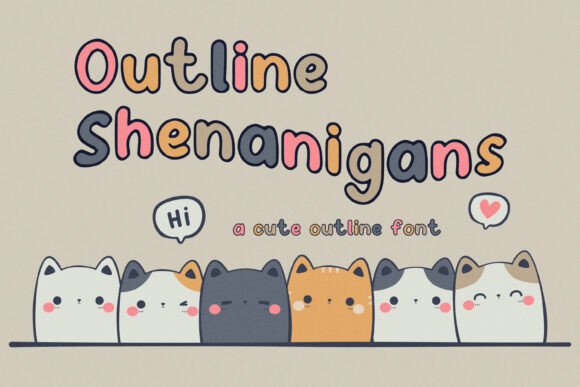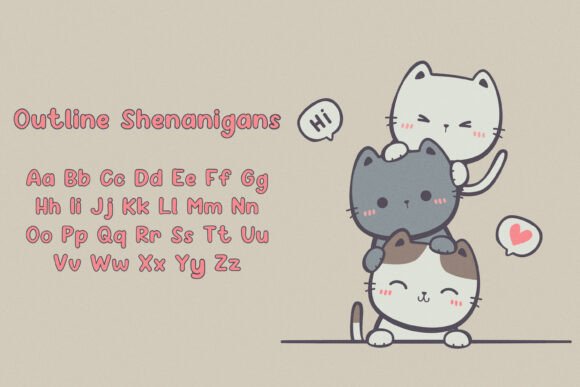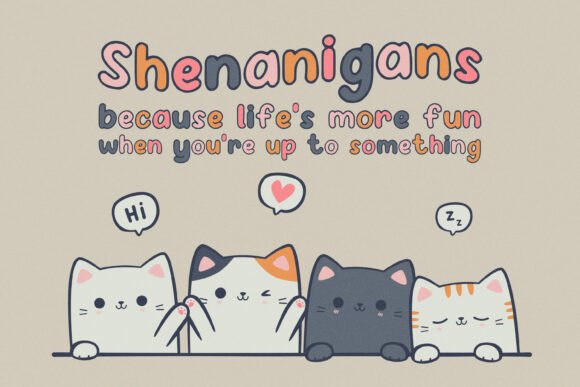
Outline Shenanigans Font: A Cute & Playful DIY Craft Font
About the Outline Shenanigans Font
The wait is over! The incredible Outline Shenanigans Font is now available for your design toolkit. Experience the charm and playful appeal of Outline Shenanigans, a delightful font that breathes life into your creative projects. Perfectly suited for wall art creations, sublimation designs, and digital scrapbooking, this font infuses an element of whimsy and enjoyment to your work.
Outline Shenanigans’ playful energy makes it ideal for headlines, short text blocks on posters, and branding elements needing a touch of whimsy. It works exceptionally well for children’s products, invitations, and social media graphics where a lighthearted feel is desired. However, its distinctive style is less suitable for body text or UI elements requiring high readability. Extended use could hinder legibility.
Consider pairing Outline Shenanigans with a clean sans-serif like Open Sans for body copy to balance its playful forms. For a more sophisticated feel, a classic serif such as Garamond would provide a refined counterpoint. Alternatively, a simple geometric sans-serif offers a modern contrast.
The font’s overall personality is best described as playful and friendly, yet still retains a level of sophistication when used appropriately. Avoid using it in contexts demanding seriousness or formality.
Outline Shenanigans Font Usage Examples
Outline Shenanigans Font Example